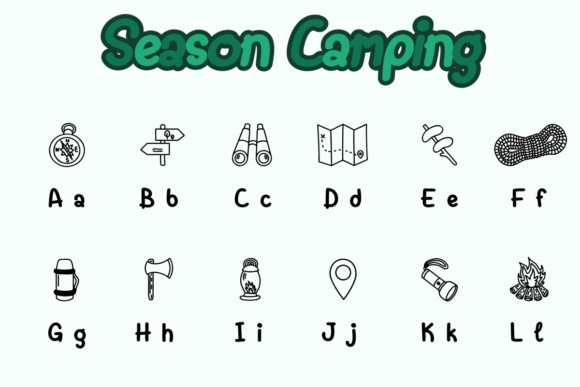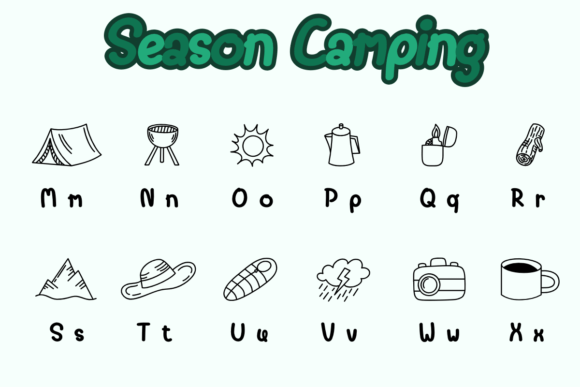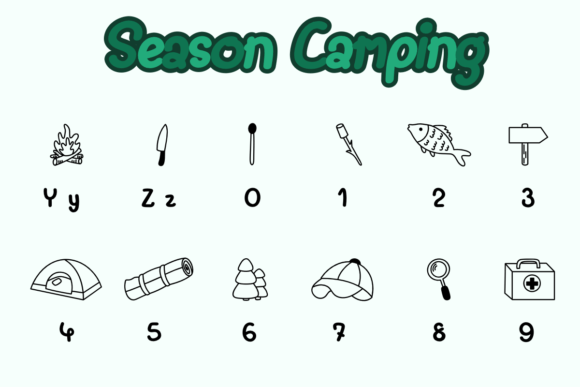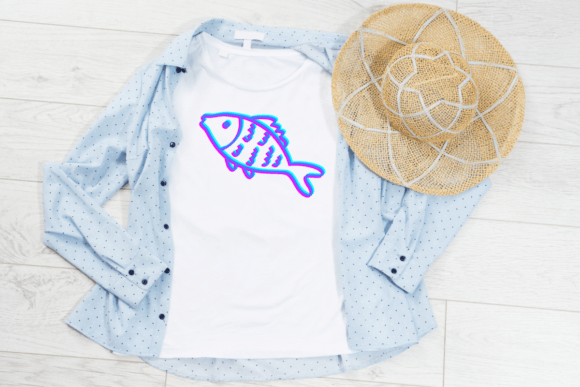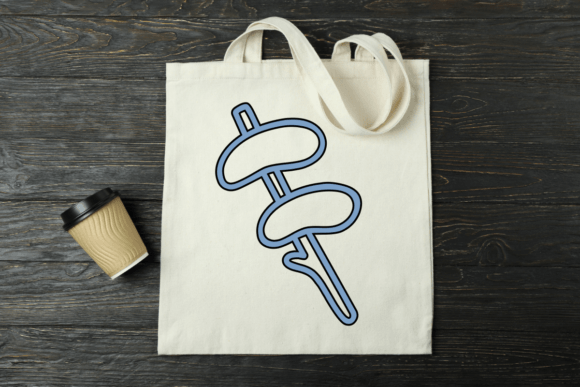
Introduction to Season Camping Font
Have you ever found yourself brainstorming ideas for a creative project, only to get stuck on the perfect font to match your outdoor-inspired theme? I know I have. The struggle is real, especially when you’re trying to convey a sense of adventure and freedom in your design. But what if I told you there’s a font that can bring the great outdoors right into your project?
Enter the Season Camping Font, a unique and captivating dingbat font that’s perfect for designers looking to add a touch of the wild to their designs. With its high-quality, transparent background, and wide range of camping-related icons, this font is a game-changer for any project that needs a dose of the great outdoors.
Whether you’re designing a brochure for a hiking trail, a logo for a camping gear company, or simply want to add some personality to your social media posts, the Season Camping Font is an invaluable resource that’s sure to elevate your designs and leave a lasting impression.
Key Features of Season Camping Font
- High-quality design resource ideal for various creative projects, including outdoor and nature-themed designs.
- Features a transparent background, allowing for seamless integration with any design.
- Includes a wide range of glyphs and characters, making it suitable for various design applications.
- Designed to be versatile and easy to use, making it a great addition to any design collection.
Honest Review: Season Camping Font
As a designer, I’m always on the lookout for unique and high-quality design resources to elevate my creative projects. Recently, I stumbled upon the Season Camping Font, and I must say it’s been a delightful discovery. ✨
One of the standout features of this font is its versatility. It’s perfect for outdoor-themed projects, camping advertisements, or even travel brochures. The font’s design is clean, modern, and easy to read, making it a great addition to any design project.
Some of the key features that make the Season Camping Font shine include:
- Transparent background, making it easy to use on any design surface
- High-quality design, perfect for printing or digital use
While the Season Camping Font is an excellent resource, there are a few limitations to keep in mind: ⚠️
- Limited font styles, which may not be suitable for complex design projects
- No bold or italic font weights, which may limit its use in certain contexts
Overall, the Season Camping Font is a great addition to any designer’s toolkit. Its unique design and high-quality construction make it a valuable resource for outdoor-themed projects and beyond. With a little creativity, this font can help take your designs to the next level.
Tips for Getting the Most Out of Season Camping Font
Common Use Cases for Season Camping Font
The Season Camping Font is suitable for a variety of use cases, including designing promotional materials, creating social media graphics, and developing branding materials. This font’s high-quality design makes it a valuable resource for designers.